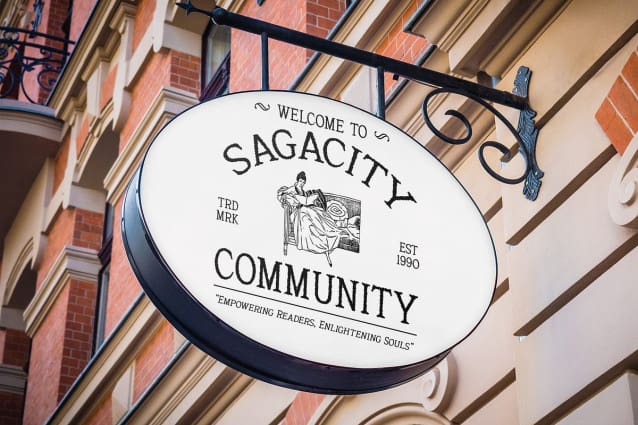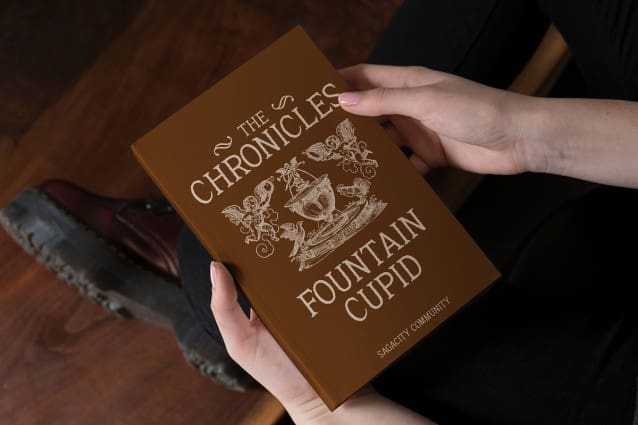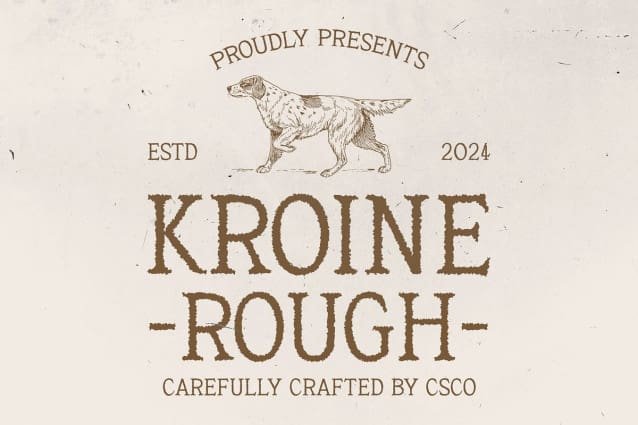
Kroine Rough Font
Kroine Rough Font is a modern serif font that masterfully combines sophisticated design with a distinctive rough effect. The clean lines and classic serif shapes underscore a sense of refined luxury and elegance, while the rough texture introduces a unique, artistic flair.
Sophisticated Serif Details with a Textured Twist Featuring meticulously crafted serifs, Kroine Rough exudes sophistication and professionalism. The rough effect adds a dynamic texture that contrasts with the smooth elegance of the serifs, creating a visually compelling and bold appearance.
Perfect for High-Impact Designs Ideal for a variety of design projects, Kroine Rough excels in branding, invitations, and other applications where a blend of modern elegance and striking visual impact is required. Its ability to balance smooth sophistication with a distinctive, textured character makes it an excellent choice for creating memorable and sophisticated designs.
A Font That Radiates Distinction With Kroine Rough, you achieve a perfect harmony between classic elegance and contemporary edge. This font is designed to stand out, offering a unique combination of refinement and artistic texture that enhances any project with a touch of modern luxury.